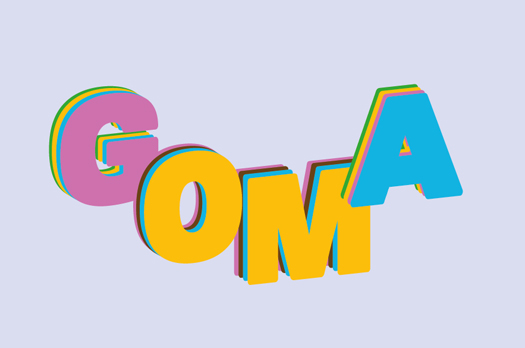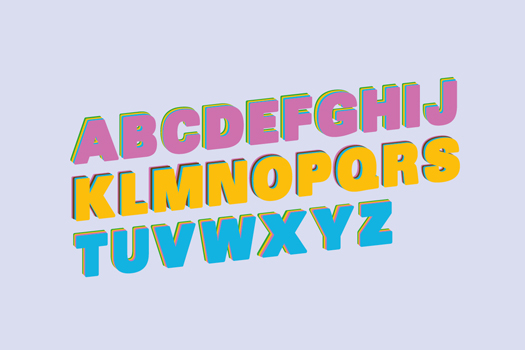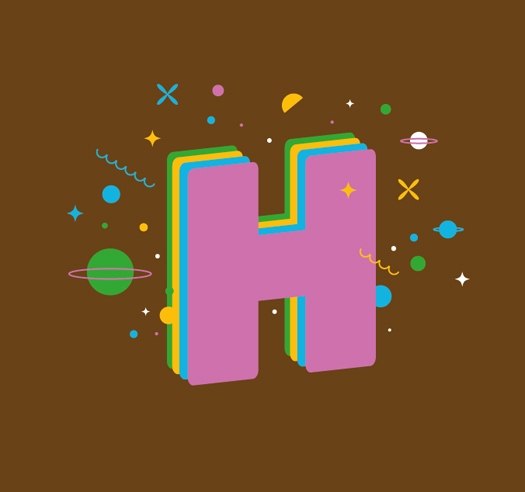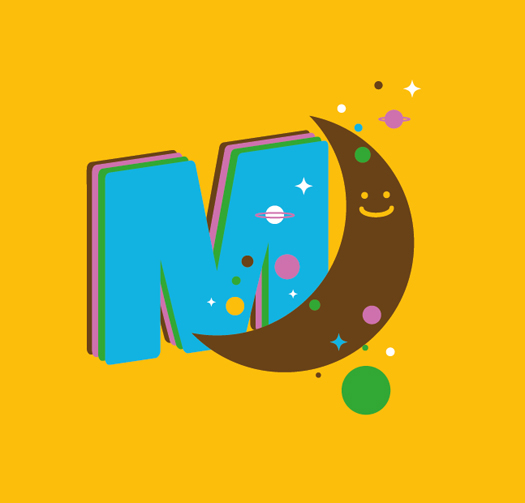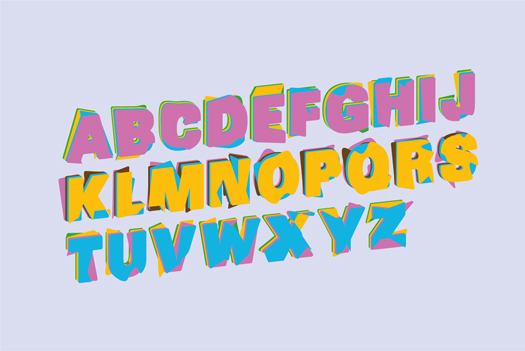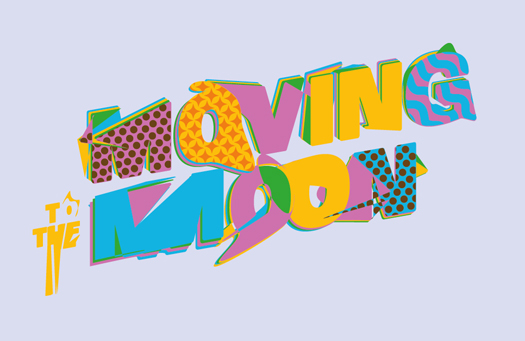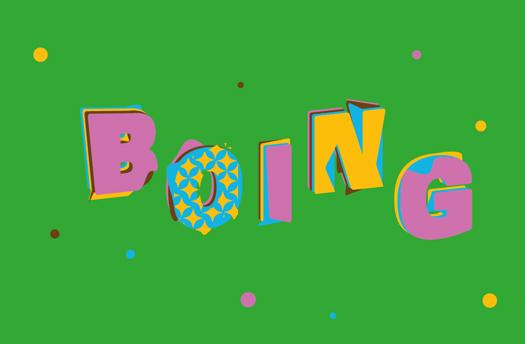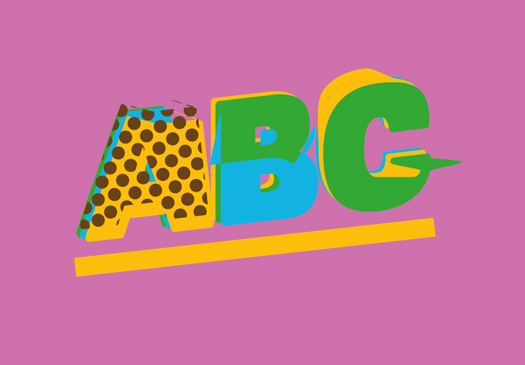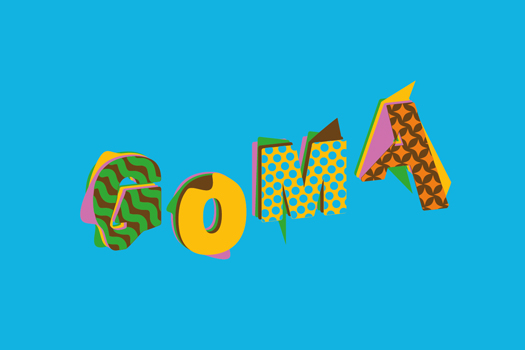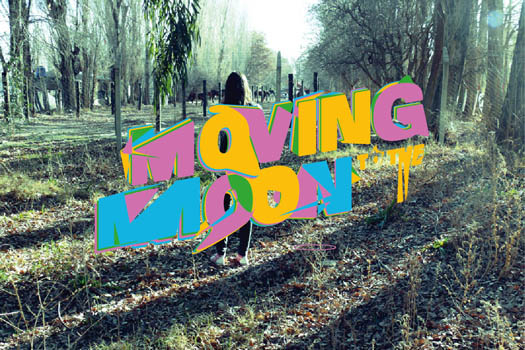
Goma
GOMA is another experimental typeface created out of deforming the typography SansBlackā¢, creating a random style out of the shapes from repetitive movement. Mixed with textures GOMA can be stilized as you wanted and create a funny & crazy looking style.